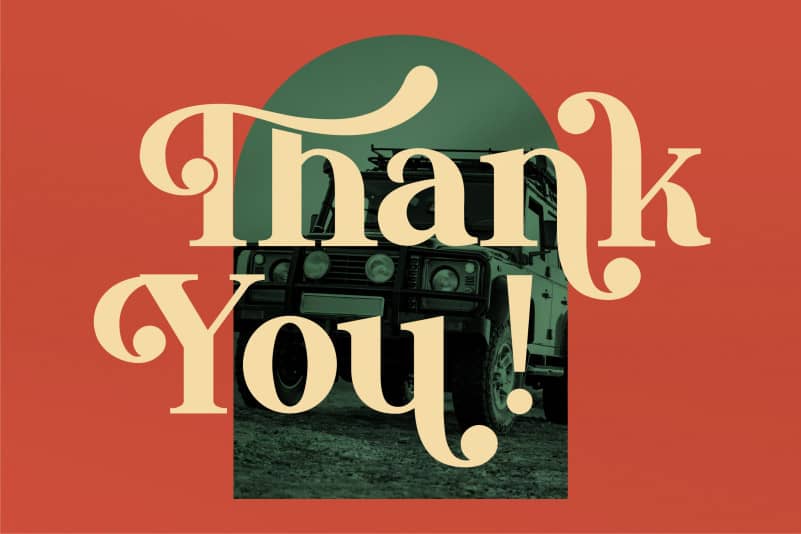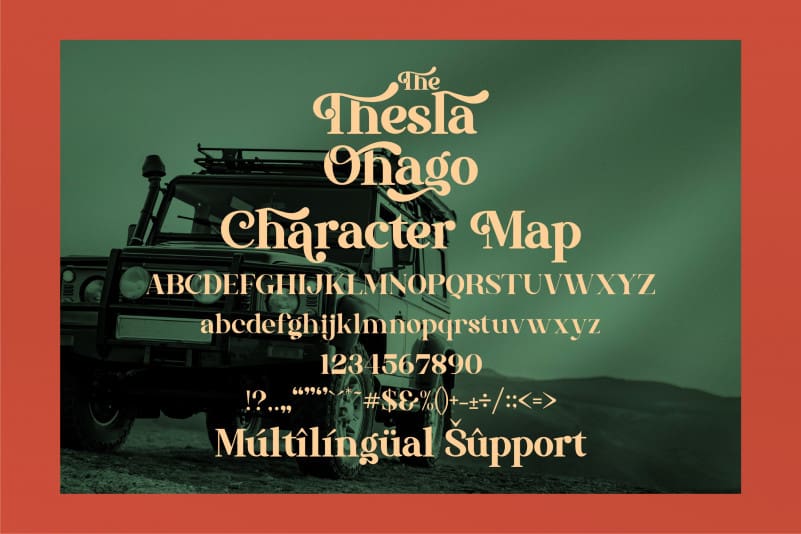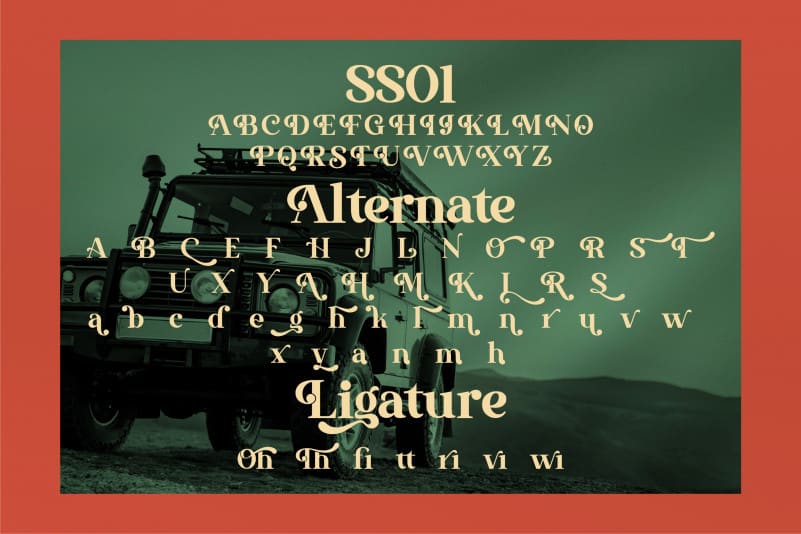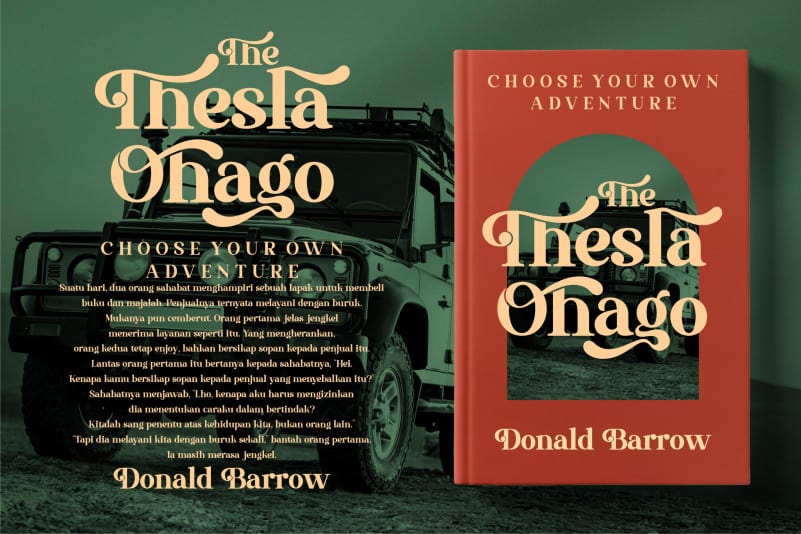
The Thesla Ohago Serif Font
The Thesla Ohago – Luxury Serif Font, from Letterena, is a Luxury serif font, suitable for any projects such as: logos, branding projects, homeware designs, product packaging, mugs, quotes, posters, shopping bags, t-shirts, book covers, name card, invitation cards, greeting cards, label, photography, watermark, special events, and all your other luxury and beautiful projects that need a Beautiful serif taste.